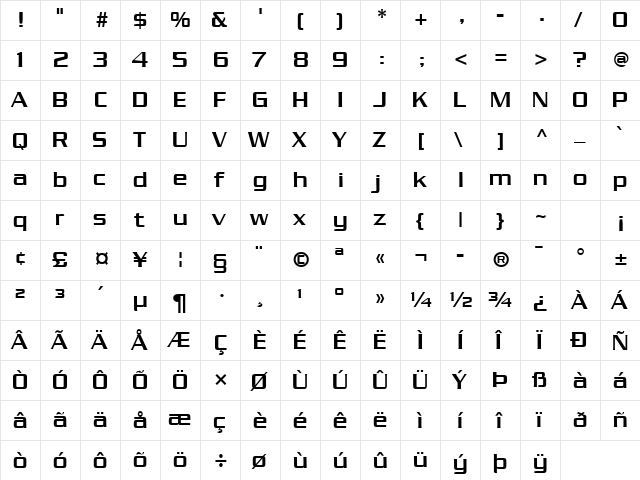
Chaney Normal
Design Context for Chaney Typeface
Chaney takes a measured approach to typography — its balanced proportions and neutral character make it a reliable workhorse for both digital and print work.